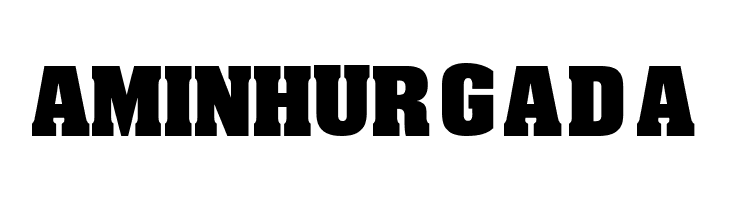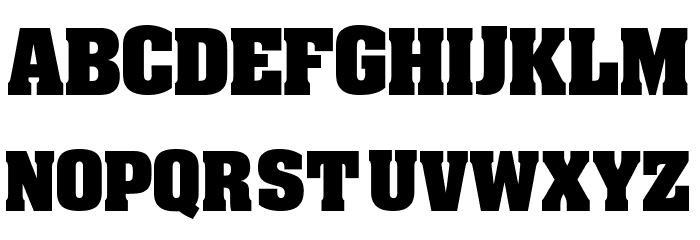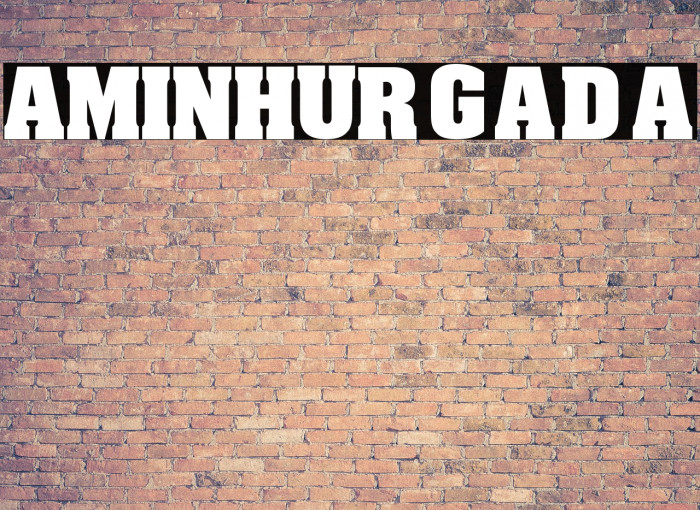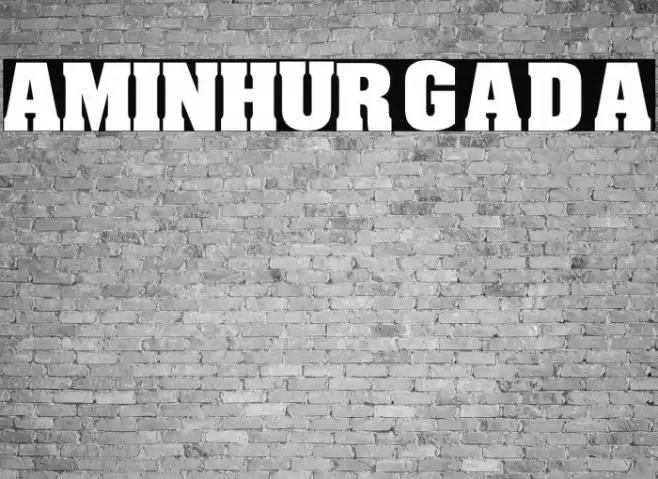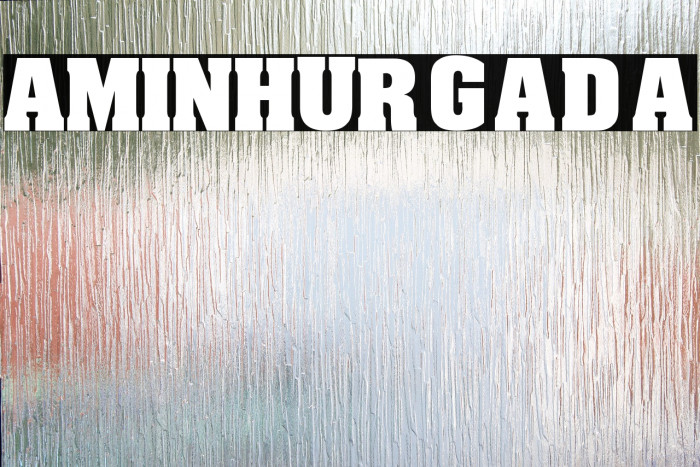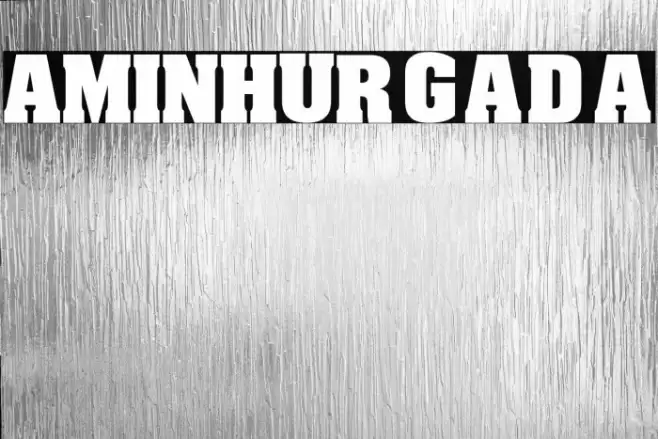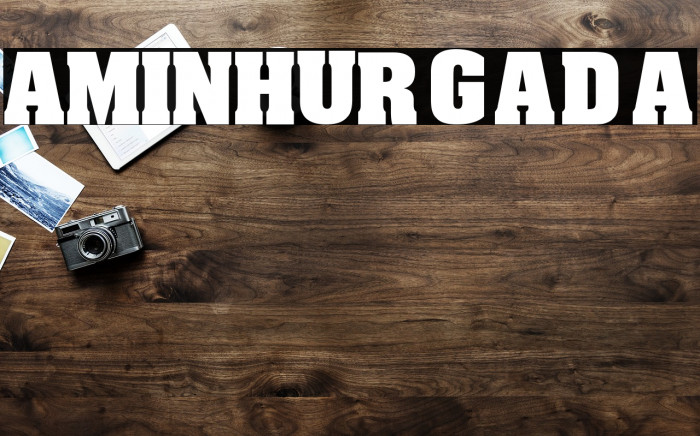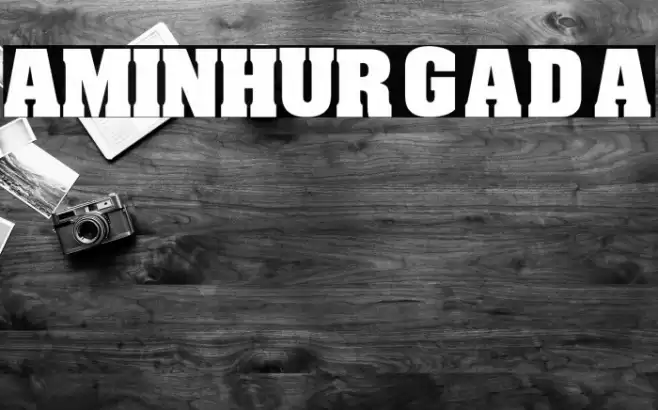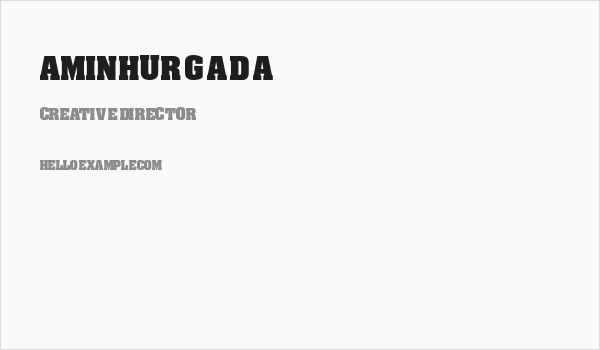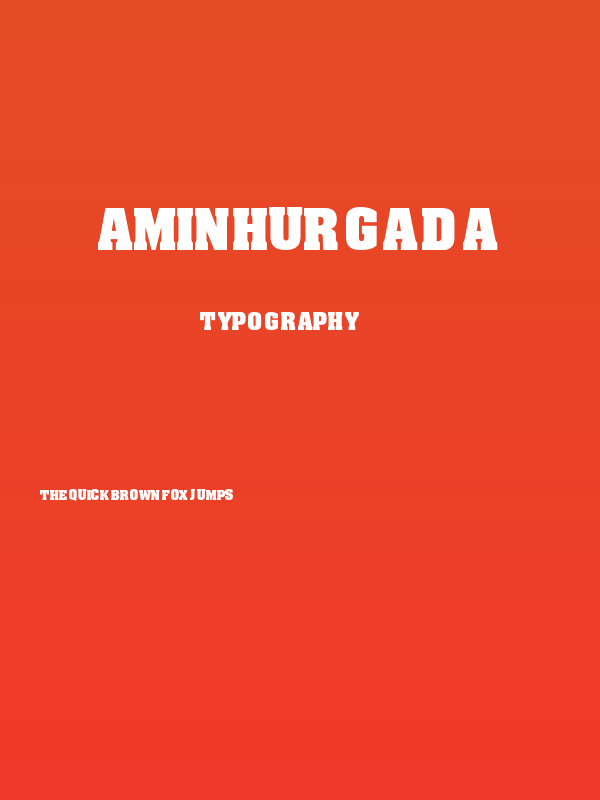
Amin_Hurgada Font
Amin_Hurgada Description
This font is characterized by its bold and robust appearance, featuring thick, block-like serifs that give it a strong and commanding presence. The uppercase letters are uniformly designed with a consistent stroke width, providing a sense of stability and balance. The font's overall design is reminiscent of traditional slab serif styles, yet it maintains a modern edge with its clean lines and lack of ornamentation. The characters are tightly spaced, enhancing its boldness and making it ideal for impactful headlines or titles. Its high contrast in stroke thickness further emphasizes its boldness, making it stand out in any design.
| Proposed Projects | This font is perfect for projects that require a strong visual impact, such as posters, headlines, branding materials, and signage. |